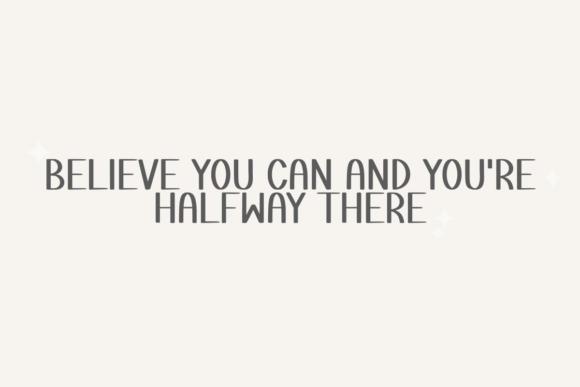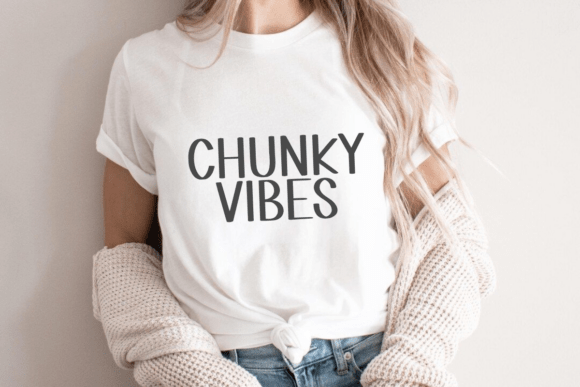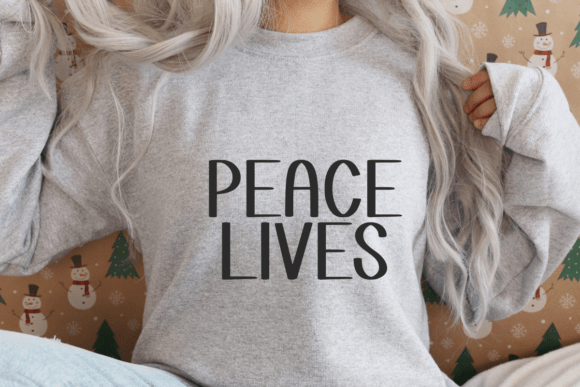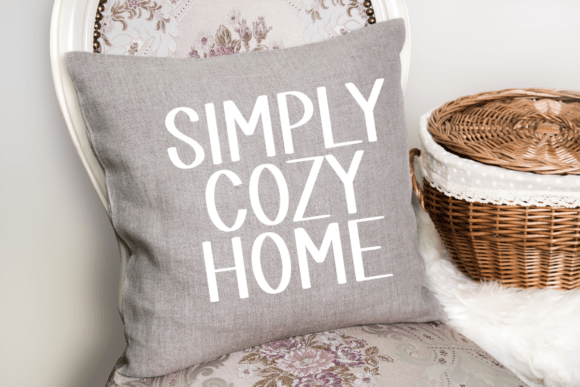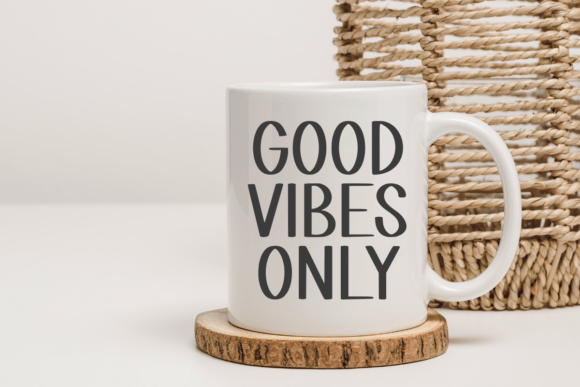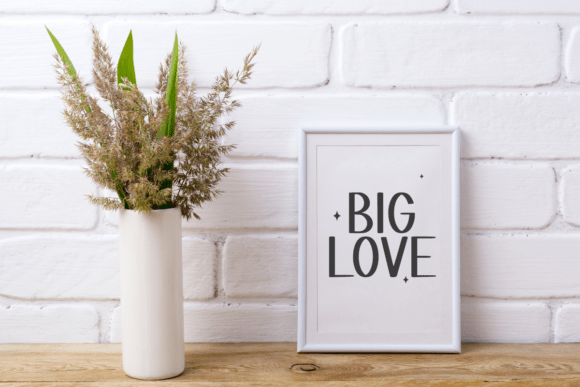
Introduction to Simple Chunky Font
Have you ever been browsing through Pinterest and stumbled upon a beautiful handmade card or a colorful planner spread that caught your eye? The simple, yet elegant handwriting font used in the design instantly grabbed your attention, didn’t it? That’s the magic of the Simple Chunky Font, a cute sans serif handwriting font designed to bring a warm, handcrafted feeling to your creative projects.
As a designer, you know the importance of having the right tools and resources to bring your ideas to life. The Simple Chunky Font is a valuable addition to any design library, offering a high-quality, transparent background that’s perfect for crafting moms, educators, and anyone who loves adorable handwritten styles. Whether you’re working on a craft project, a classroom printable, or a DIY design, this font is sure to add a touch of personality and whimsy to your creations.
Key Features of Simple Chunky Font
- High quality design with a unique, chunky aesthetic perfect for creative projects.
- Each character is carefully crafted with a resolution of 1024 x 1024 pixels for crisp, clear display.
- Perfect for use in digital and print projects, including posters, flyers, and social media graphics.
Honest Review: Simple Chunky Font
I recently stumbled upon the Simple Chunky Font and I must say, it’s been a game-changer for my creative project. The font is incredibly easy to use and offers a high quality, bold look that adds a touch of sophistication to any design.
- ✨ High quality and crisp design
- ✨ Easy to use and customize
- ✨ Perfect for headings, titles, and body text
Overall, I’m really impressed with the Simple Chunky Font. It’s a great addition to any designer’s toolkit and is perfect for anyone looking to add a touch of style to their creative project.
The Simple Chunky Font is a free design resource ideal for creative projects requiring a high quality, bold, and eye-catching text style. This versatile font is perfect for various applications, including digital and print media.
For optimal results, use Simple Chunky Font on a high contrast background to make the text stand out. Experiment with different font sizes and colors to create a visually appealing design.